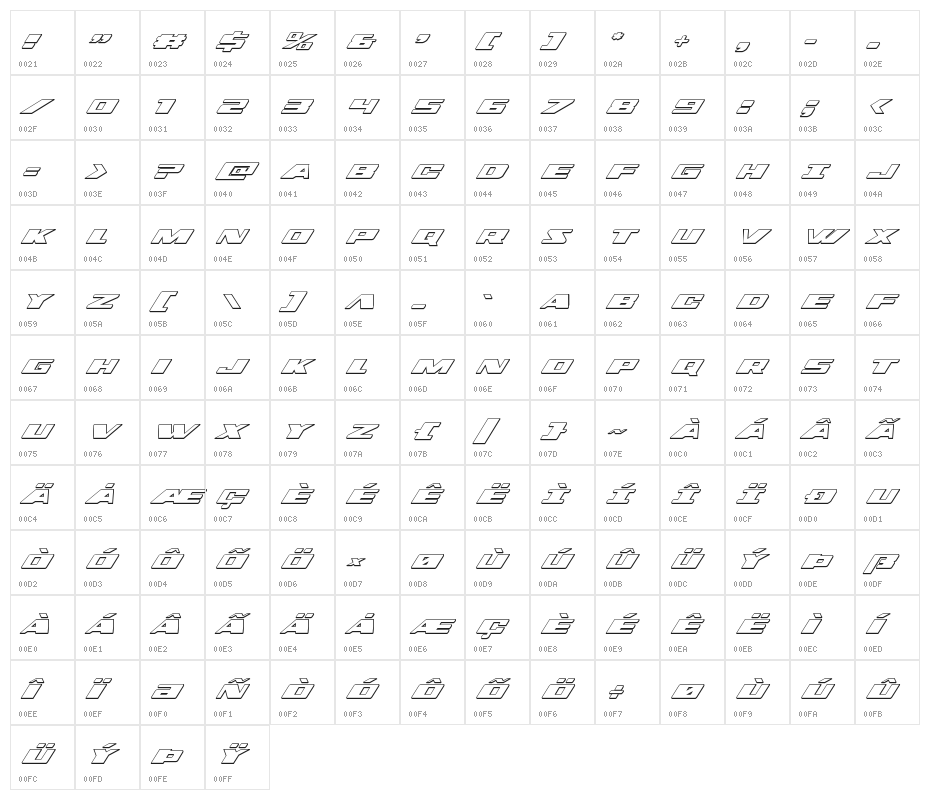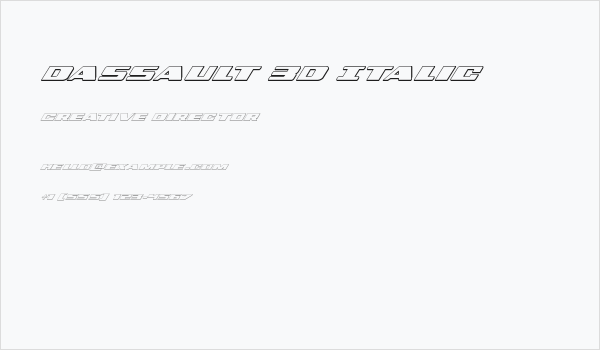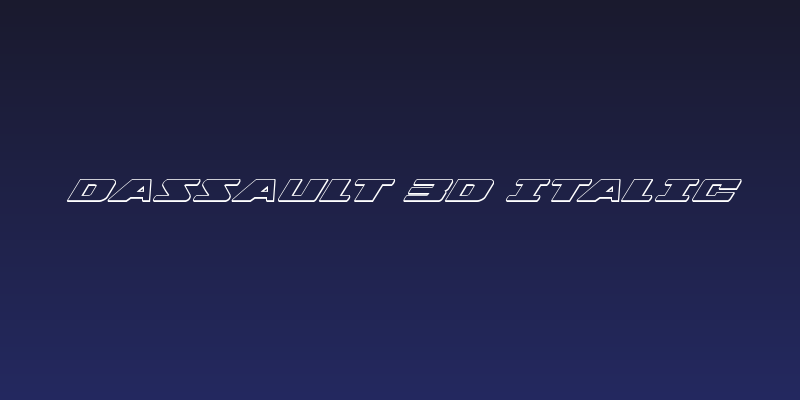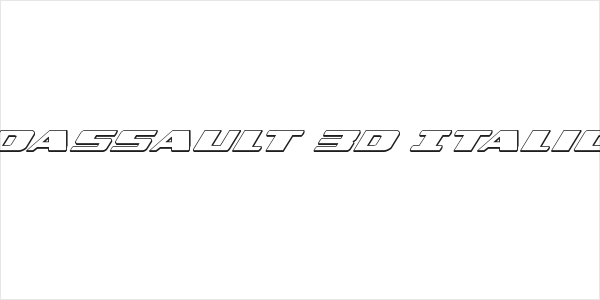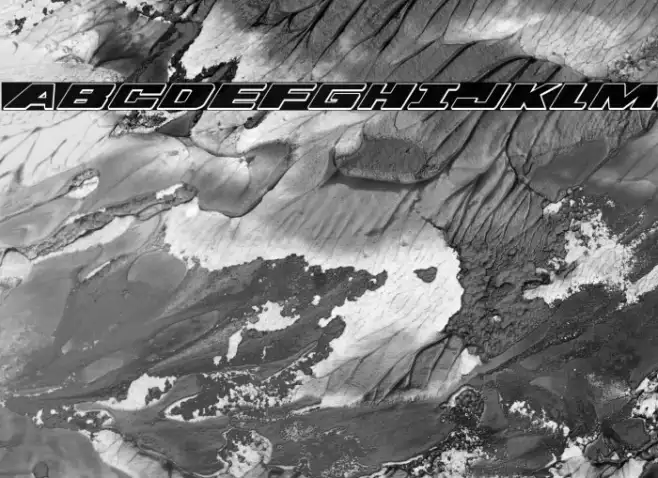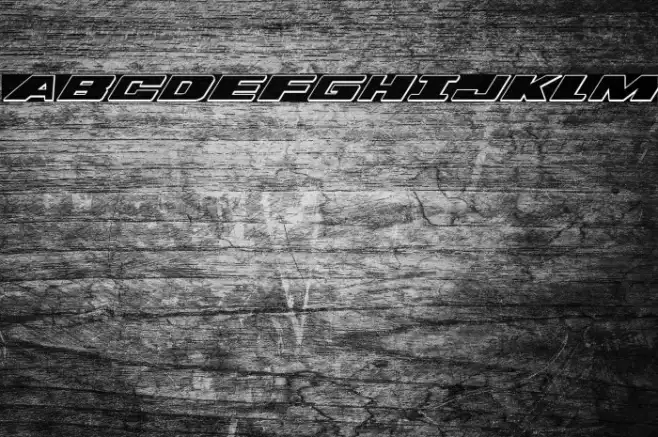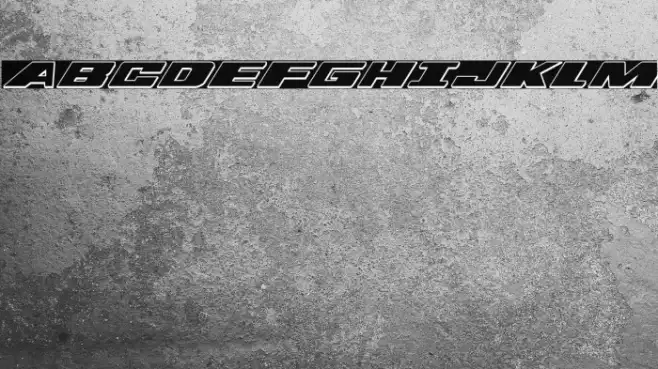
Dassault 3D Italic Font
Dassault 3D Italic Description
This font features a bold, italicized style with a three-dimensional effect, giving it a dynamic and futuristic appearance. The characters are outlined, creating a hollow look that adds depth and visual interest. The uppercase letters are angular and geometric, with sharp edges and a forward-leaning slant that suggests motion and speed. The numbers and special characters follow the same design principles, maintaining consistency across the set. This font is ideal for projects that require a modern and edgy aesthetic, such as technology branding, sports team logos, or sci-fi themed designs.
| Use Case | Logos, Headlines |
| Proposed Projects | Ideal for technology branding, sports logos, and sci-fi themed designs. |